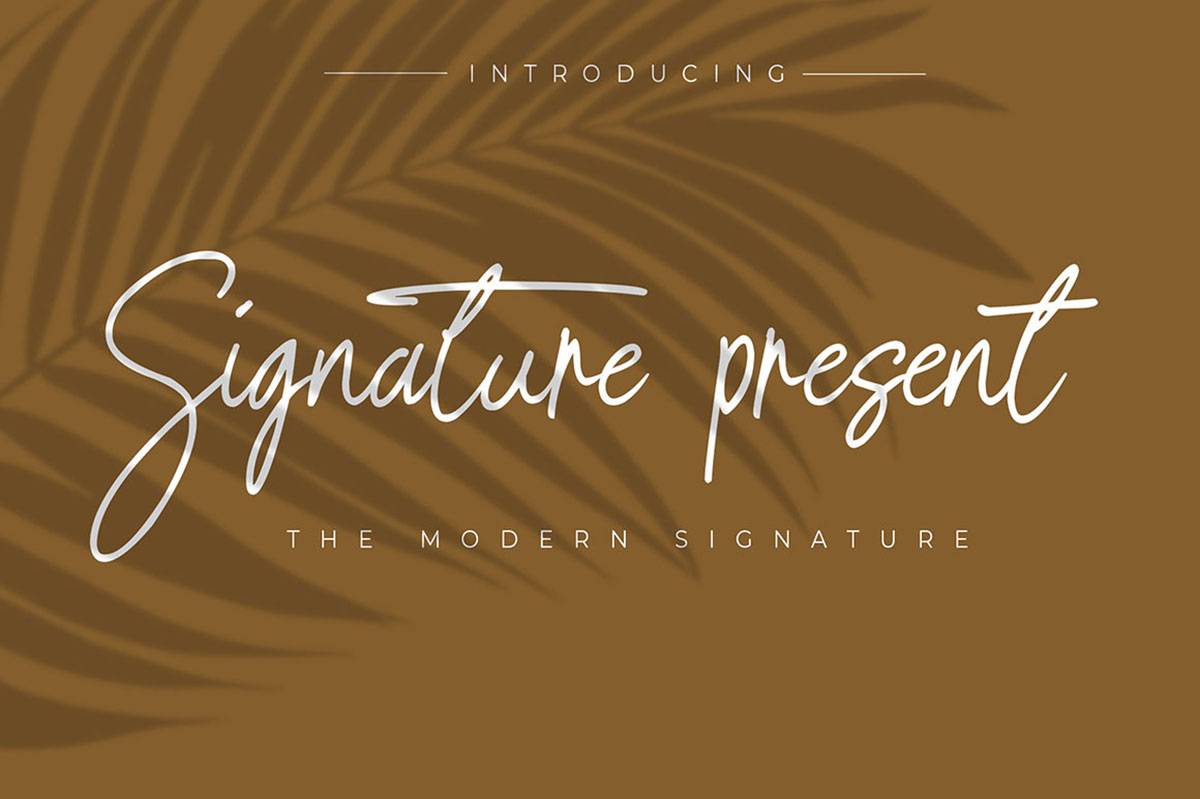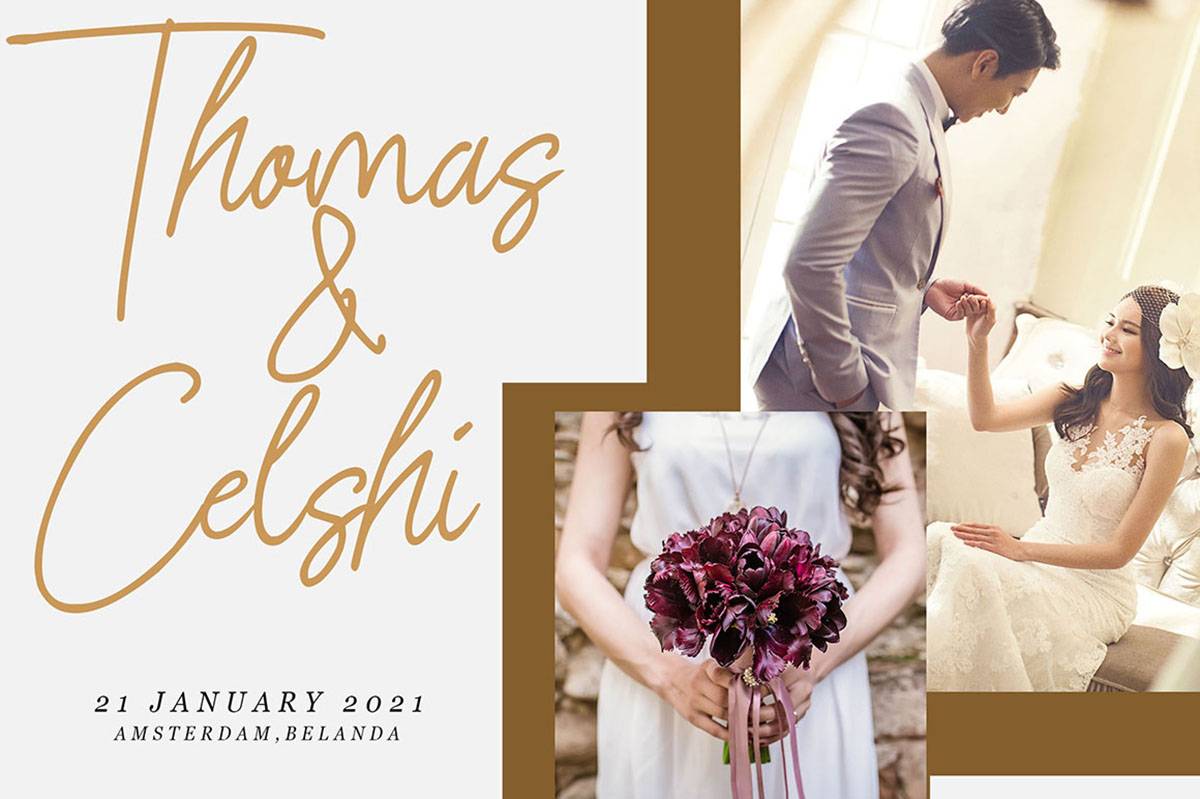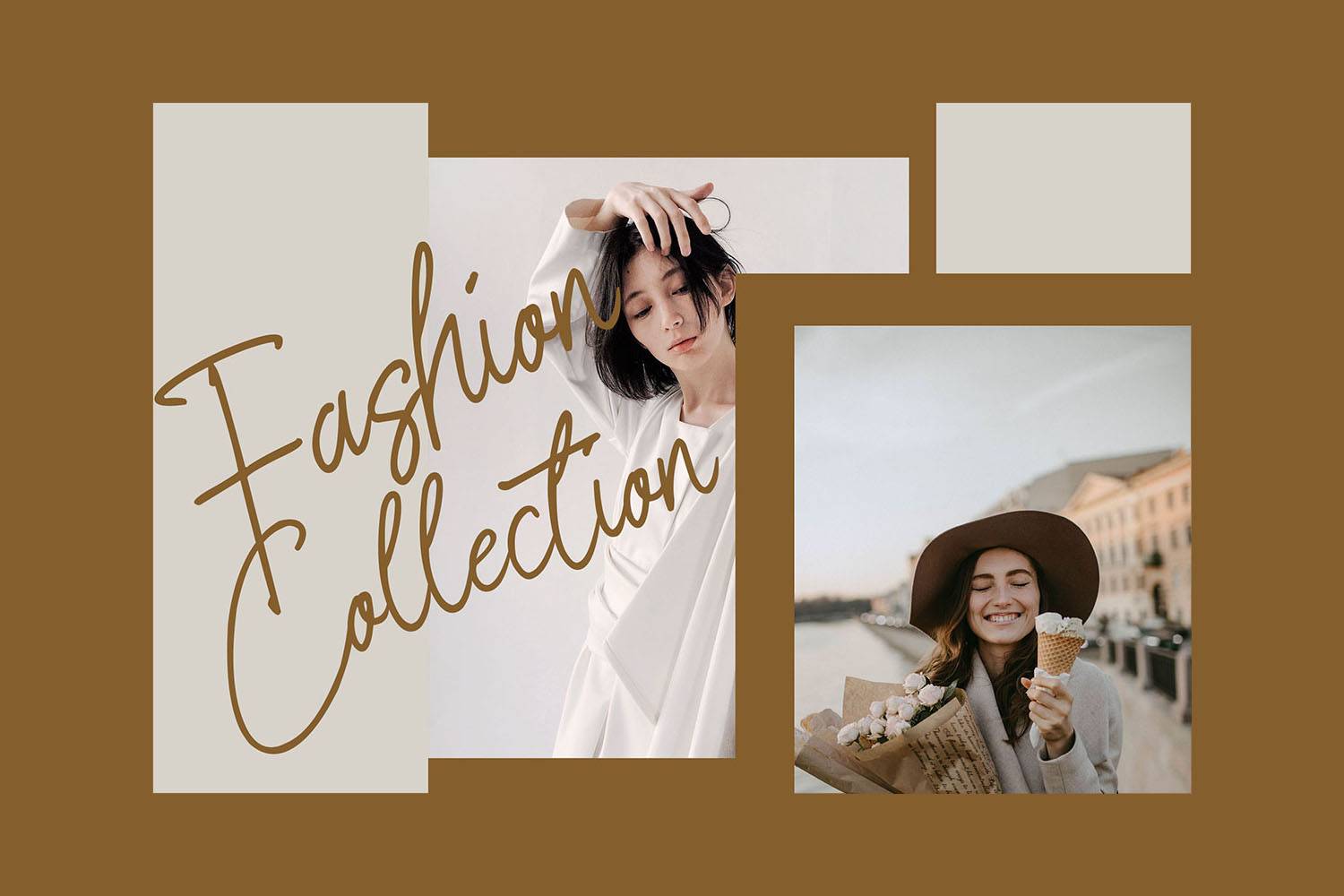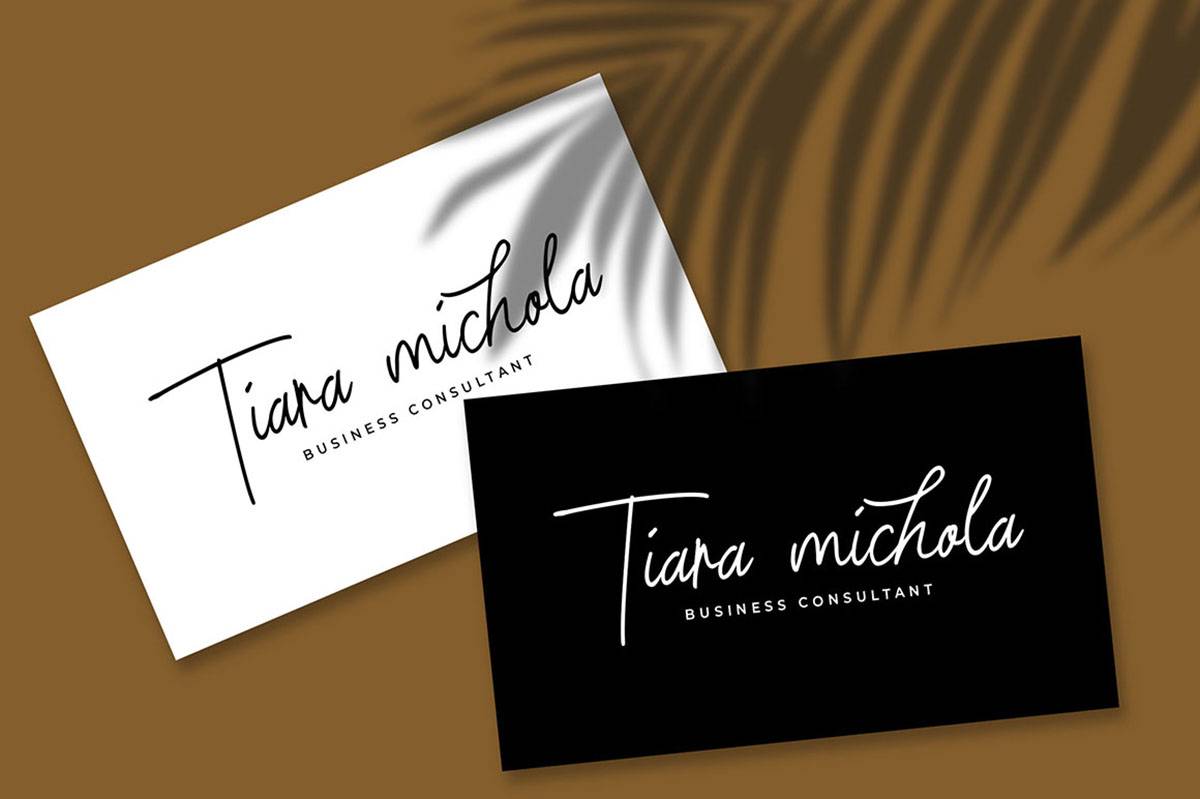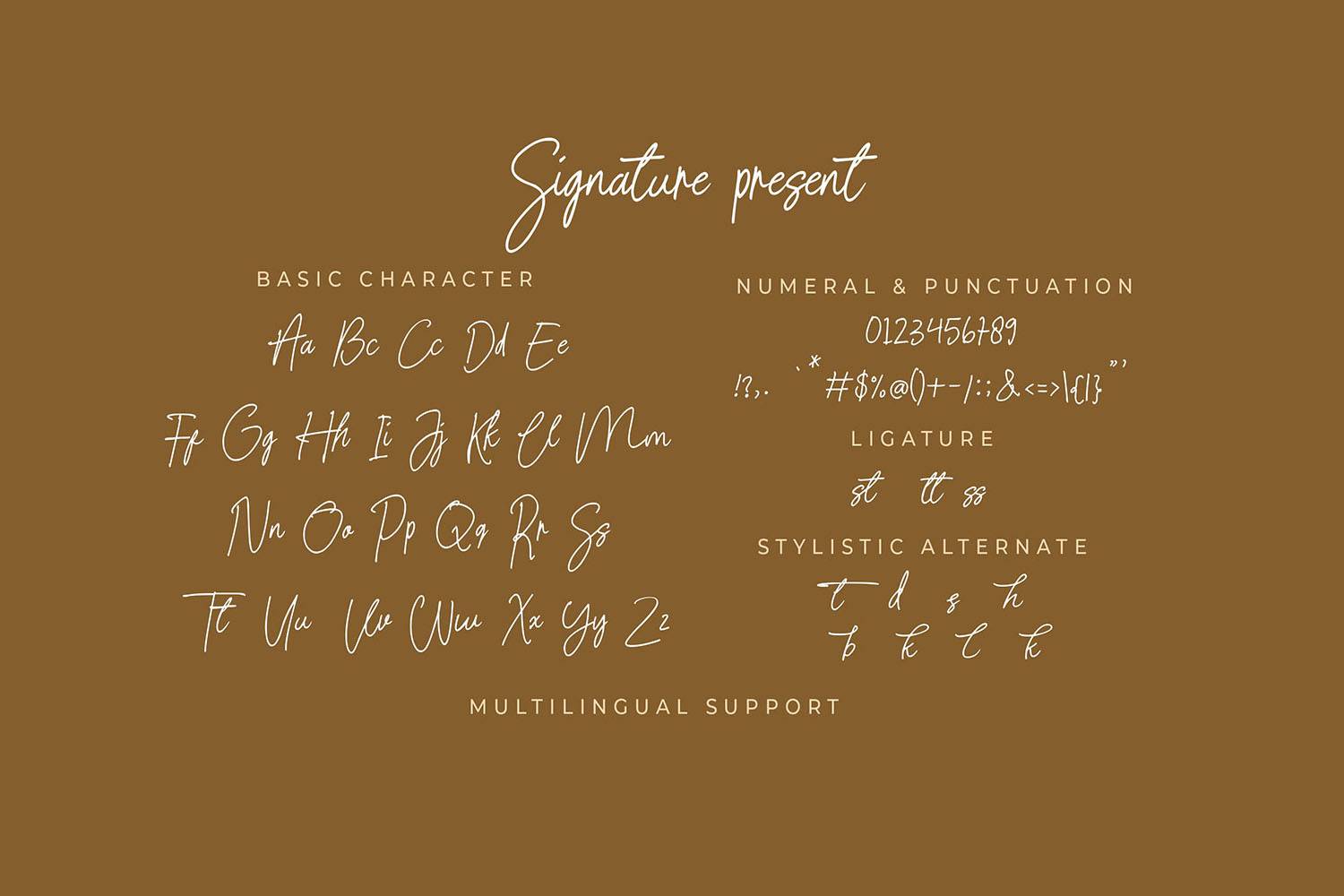
Signature Present is a delicate, handwritten script font that captures the natural flow of personal handwriting with its slender, slightly uneven strokes and airy spacing. Its elegant and informal style makes it perfect for creative branding, invitations, and social media graphics where a friendly yet refined touch is desired. This font works beautifully in designs that aim to feel personal, expressive, and modern.
Signature Present Font
About Signature Present Font